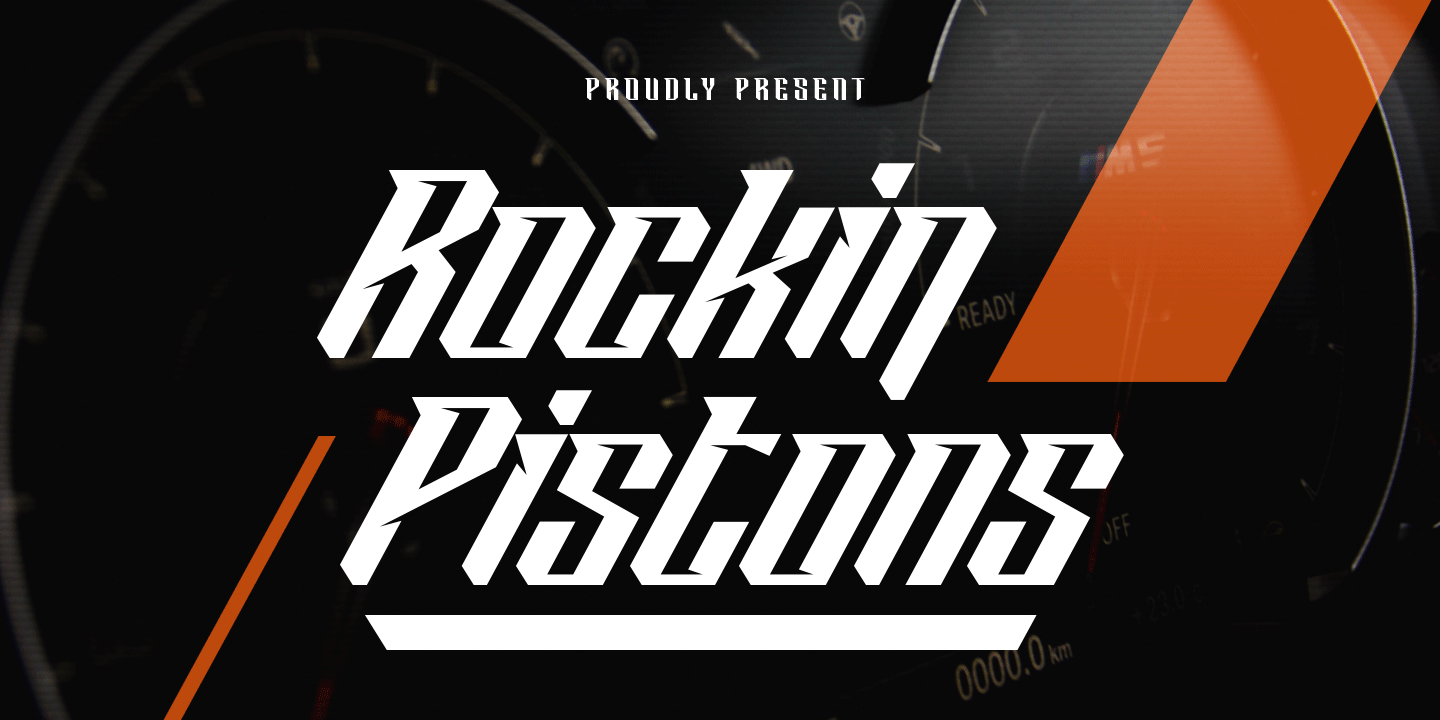
Rockin Pistons Font is perfect for motorcycle club logos, rock band merchandise, automotive garage branding, muscle car show posters, biker rally promotions, vintage racing events, heavy metal album covers, custom motorcycle shop signage, classic car restoration businesses, roadhouse bar branding, motorsports team graphics, and rebellious lifestyle marketing.
This font is exciting because it channels the raw power and rebellious spirit of roaring engines and thunderous rock music, featuring bold, mechanical letterforms that pulse with the same adrenaline-fueled energy that drives both high-performance pistons and electrifying guitar riffs. The rugged character design evokes the gritty chrome and steel aesthetic of classic American muscle cars and motorcycles, while maintaining the aggressive edge that defines authentic rock and roll culture. Each letter rumbles with mechanical precision and rock star attitude, transforming text into powerful statements that command respect on the open road.
The Rockin Pistons Font family includes regular and bold weights with complete uppercase and lowercase alphabets, gear-inspired numerals, industrial punctuation marks, and automotive-themed decorative elements. Advanced versions may feature additional distressed variants, chrome effects, flame decorations, and mechanical symbols that enhance the high-octane automotive and rock music aesthetic.
Whether you're developing motorcycle brand identities, creating rock music promotional materials, or designing automotive event graphics, Rockin Pistons Font Free Download delivers the high-powered attitude and mechanical muscle your project needs to rev up audiences and ignite passion. This typeface transforms ordinary text into thunderous declarations that capture the freedom of the open road and the power of rock music. The font's rebellious character makes it essential for brands celebrating automotive culture and rock lifestyle. Motorcycle enthusiasts and rock music fans will love how this font brings authentic mechanical power to their work with its genuinely aggressive and high-performance character.